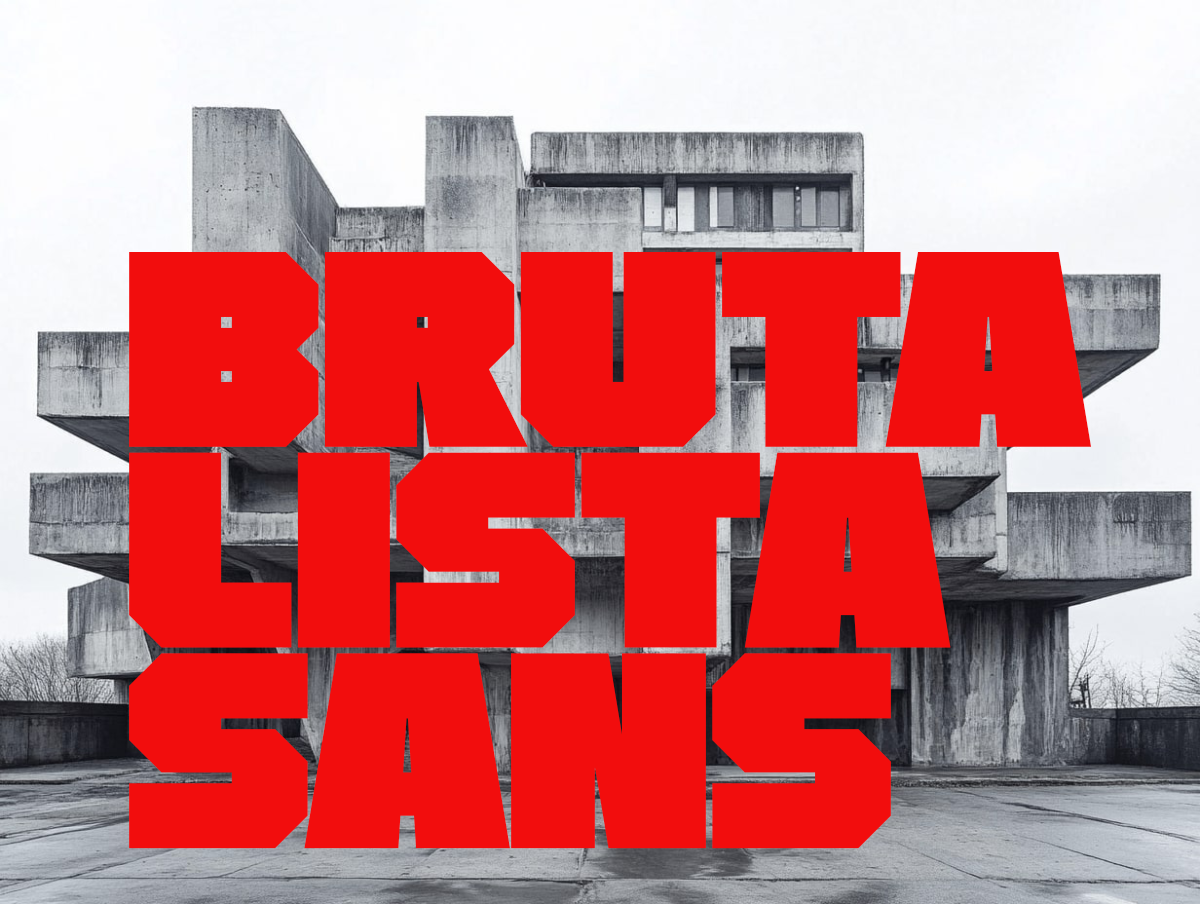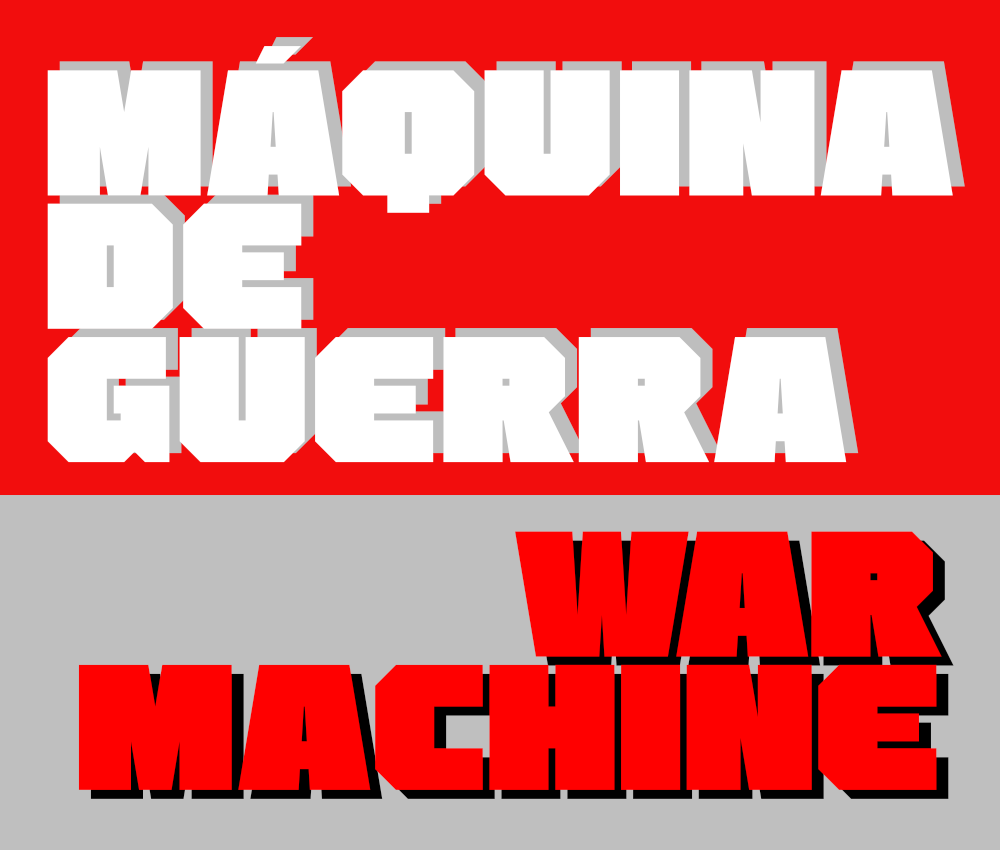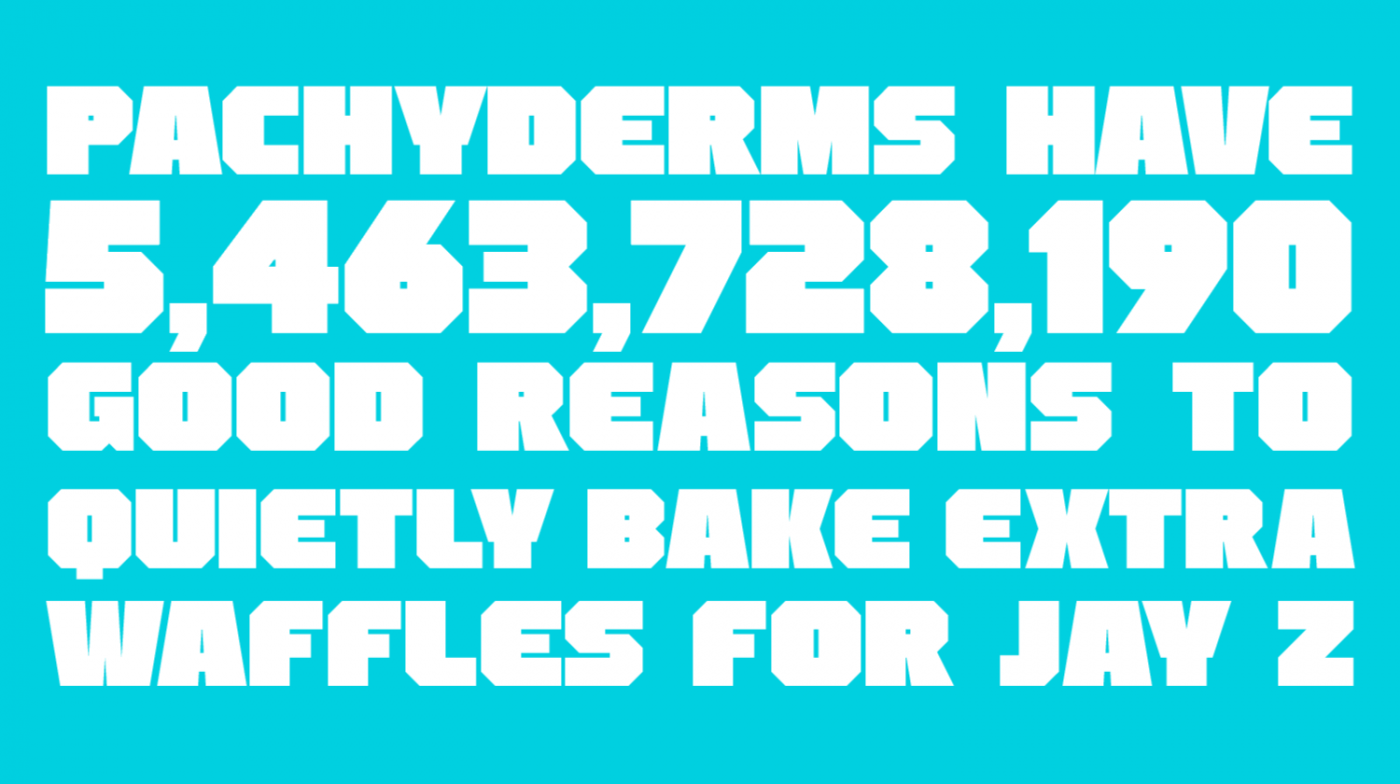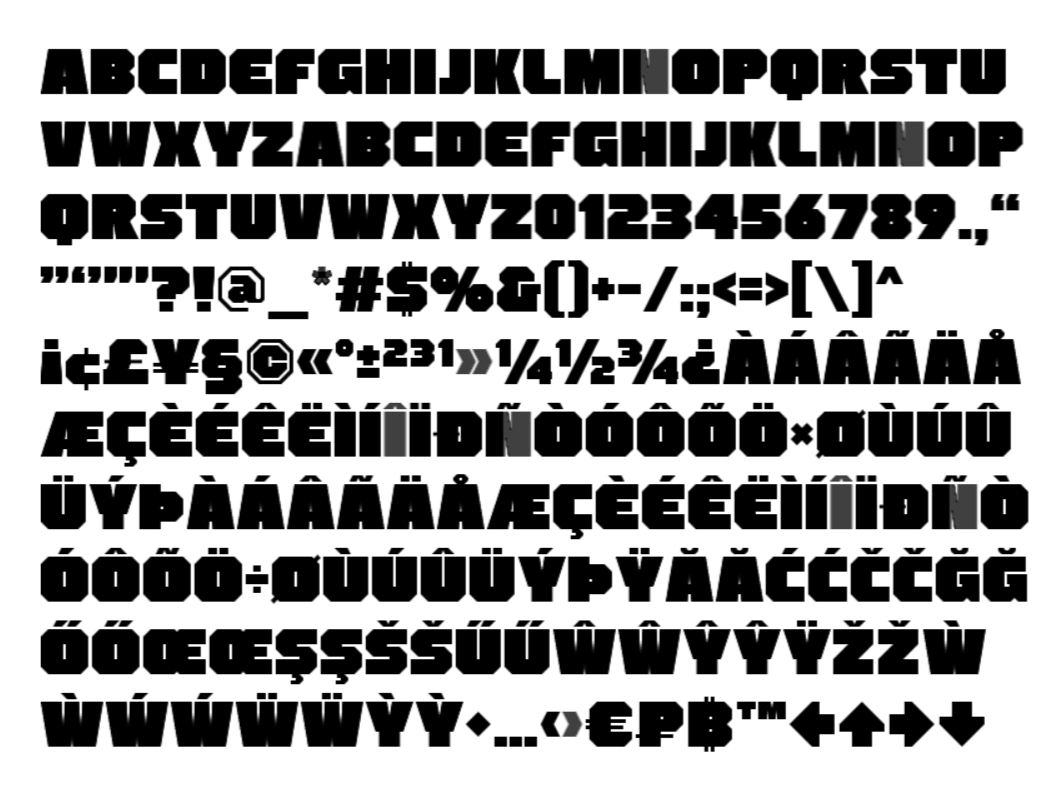
• A heavy geometric sans serif. Capitals only.
In Defence of Brutalist Type Design
In an age obsessed with smooth elegance and refinement, brutalist type design stands as an act of resistance. It rejects the notion that typography must always appear neutral, friendly, or polished. Instead, it embraces the visible logic of construction — showing the grid, the shapes and curves, and the confident edge. Just as brutalist architecture exposed its concrete and steel structure rather than hiding it behind decoration, brutalist typography lays bare the anatomy of the letter itself.
To many, such forms seem crude or unfinished. Yet this apparent roughness is, in truth, a declaration of honesty. A brutalist typeface does not disguise its modular origins or geometric scaffolding; it celebrates the letter as a built object — something designed and assembled. In these raw, polygonal outlines lies the beauty of truth: nothing concealed, nothing artificial.
Brutalist typography also restores weight to written language. In a culture of flat icons and frictionless interfaces, it gives words their physicality back — letters that feel carved rather than typed. These fonts confront the eye, command space and attention, and remind us that type can be monumental and effective.
Far from being anti-aesthetic, brutalist design is deeply aesthetic — but on its own terms. It values structure over polish, realism over illusion, and purpose over perfection. To design in this spirit is to acknowledge that strength and integrity often reside in what others would call imperfection.
If the charge is to be honest, imperfect, and functional, brutalist type design pleads guilty.
I wrote a short essay about brutalist typography with the help of ChatGPT (see above). The demo is a new pangram that contains every letter of the English alphabet, as well as the numbers. (Pachyderms are a group of mammals with thick and hard skin: elephants, rhinos, and hippos.)
Language support extended: the Latin set now supports English, French, German, Spanish, Portuguese, Dutch, Icelandic, Irish, Faroese, Welsh, Danish, Swedish, Norwegian, Finnish, Hungarian, Slovene, Croatian, Estonian, Albanian, Afrikaans, Indonesian, and Swahili. My Polish, Czech, Slovak, Romanian, Latvian, Lithuanian, Albanian, and Turkish comrades, brothers, and sisters have to wait a little longer for their special diacritics.
The Cyrillic set is also considered; I'm not sure if I can pull it off. The large letters in the Russian alphabet — monsters like the Щ, Ж, and Ю — would break the visual balance of the font. Actually, I've already created the Cyrillic set; I just don't like it.
The next task is kerning.
Welsh also has these four letters located in the Latin Extended Additional block: ẀẂẄỲ
@elmoyenique: Thank you for your kind words. To be brutally honest, there is not much to celebrate here. This font is merely my answer to the BigBang typeface (designed by Rajesh Rajput and exhibited on Behance). I didn't like some features of BigBang, so I corrected them my way. I didn't change similar letters for the sake of change. Ultra-fat sans serifs look all very similar, but small adjustments could make a big difference.